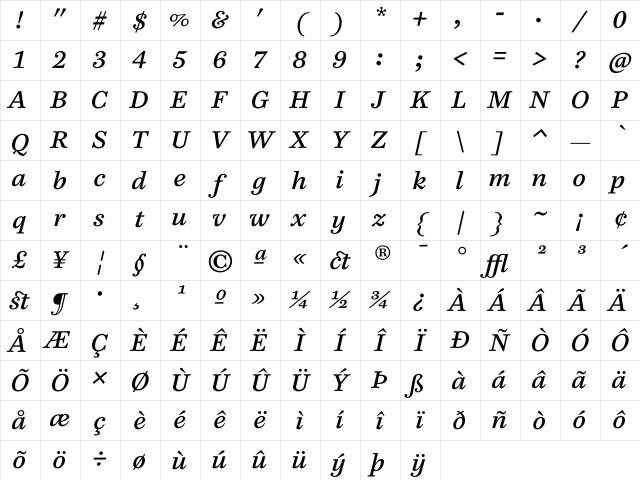
Complete PB6PS ItalicTF glyph index. Displaying only characters natively supported by PB6PS ItalicTF font.
PB6PS is a composed and adaptable typeface that performs quietly and consistently across a wide range of design contexts. The slanted form adds forward momentum and visual energy.